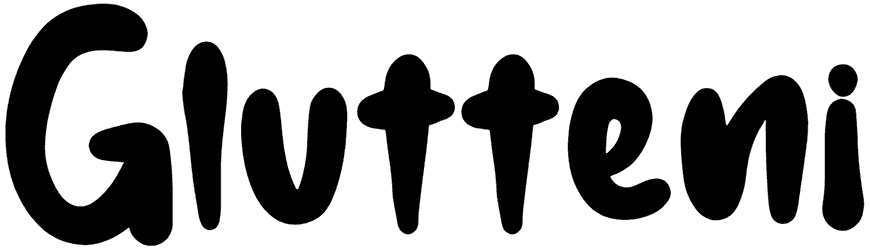
Glutteni Font
Designed byDwi Krisdiantoro
If your hands are tied because of the lack of a suitable and cohesive font, we would like to offer you a lovely script font such as Glutteni that turns your posters, illustrations, stickers, web page templates, or social media posts into a piece of art. Its bold and quirky letters can bring a vibe of playfulness, dynamism, or modernity to all of your artwork.